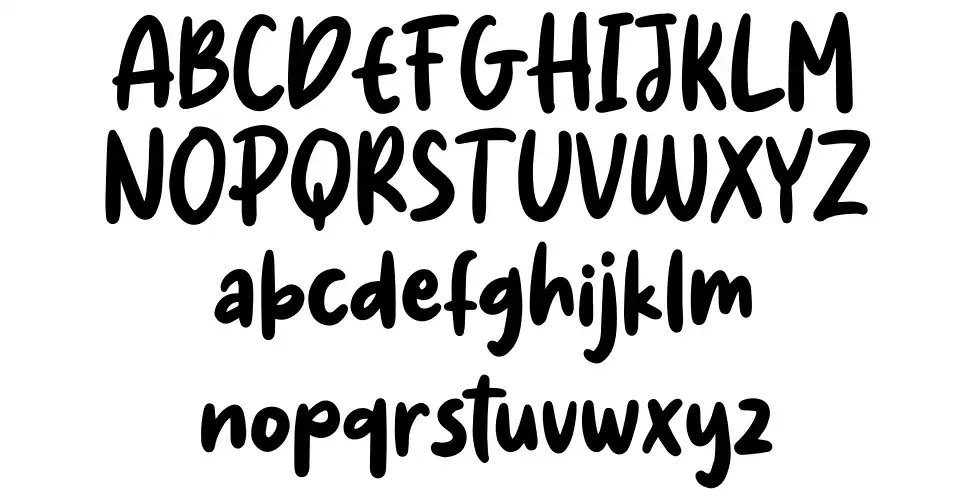
Honey Jar Font . Honey jar free trial was developed typefactoryco. This font will look outstanding in. Honey jar is a cute and friendly handwritten font. Free download of honey jar font. Honey jar is a bold and modern display font, carefully handcrafted to become a true favorite. Click now to create a custom image with. However, you need to contact the author for. Honey jar free trial is a font. Honey jar is a bold and modern display font, carefully handcrafted to become a true favorite. Be aware that the honey jar font is free for personal knowledge and use only. The typeface contains 2 files and supports 42 languages. Playful and a little bit quirky, this font is the perfect fit for all of your logos, branding, posters, and crafty diy projects. This font will look outstanding in any context,.
Honey jar is a bold and modern display font, carefully handcrafted to become a true favorite. Playful and a little bit quirky, this font is the perfect fit for all of your logos, branding, posters, and crafty diy projects. Honey jar free trial is a font. Click now to create a custom image with. Be aware that the honey jar font is free for personal knowledge and use only. However, you need to contact the author for. Honey jar free trial was developed typefactoryco. Honey jar is a cute and friendly handwritten font. This font will look outstanding in. Honey jar is a bold and modern display font, carefully handcrafted to become a true favorite.
Honey Jar Font Honey jar is a cute and friendly handwritten font. Honey jar free trial was developed typefactoryco. This font will look outstanding in any context,. Be aware that the honey jar font is free for personal knowledge and use only. Honey jar is a bold and modern display font, carefully handcrafted to become a true favorite. However, you need to contact the author for. Free download of honey jar font. This font will look outstanding in. Honey jar free trial is a font. Click now to create a custom image with. Honey jar is a bold and modern display font, carefully handcrafted to become a true favorite. Honey jar is a cute and friendly handwritten font. The typeface contains 2 files and supports 42 languages. Playful and a little bit quirky, this font is the perfect fit for all of your logos, branding, posters, and crafty diy projects.